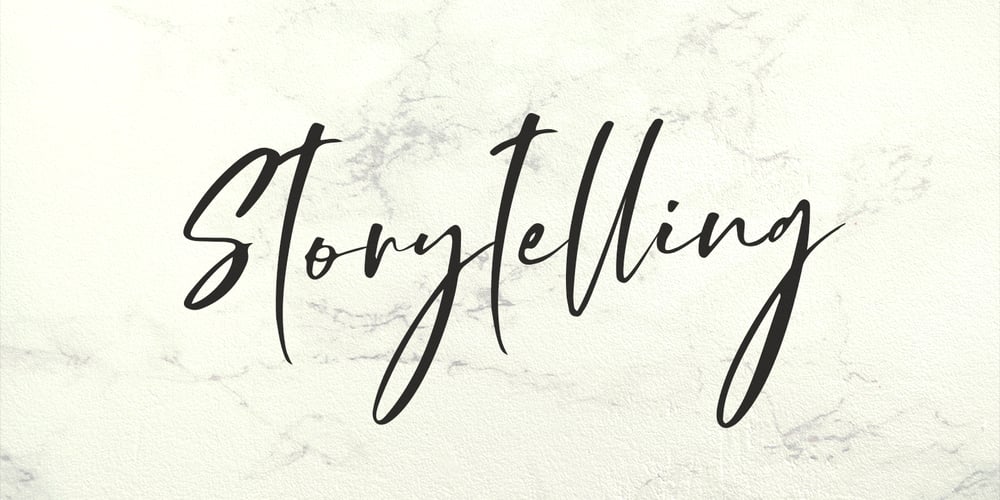
Storytelling Font Family was designed by Anton Cahyono and published by Motokiwo. Storytelling contains 1 styles and family package options. Storytelling is luxury and elegant modern calligraphy with natural handwriting style. It’s great for various design purposes that need a classy feel such as logos, social media, wedding, branding, business cards, and many more. Storytelling contains uppercase, lowercase, numeral & punctuation, ligature, it’s multi-lingual and already PUA encoded.